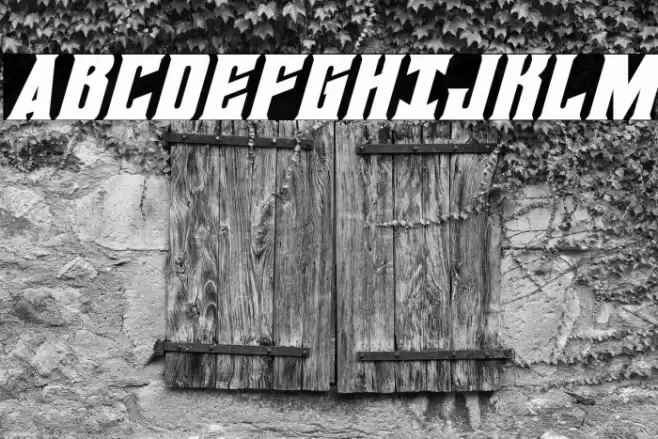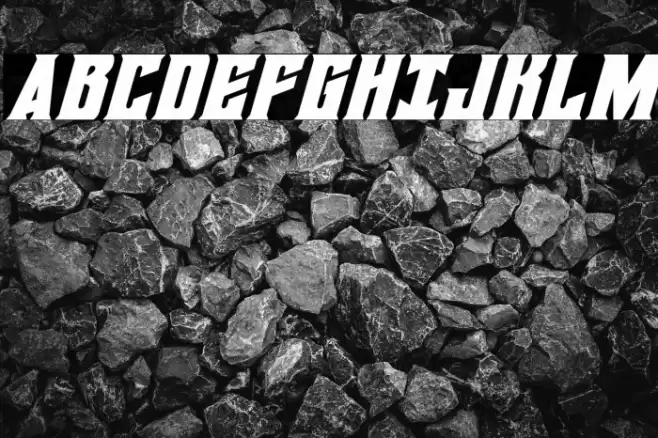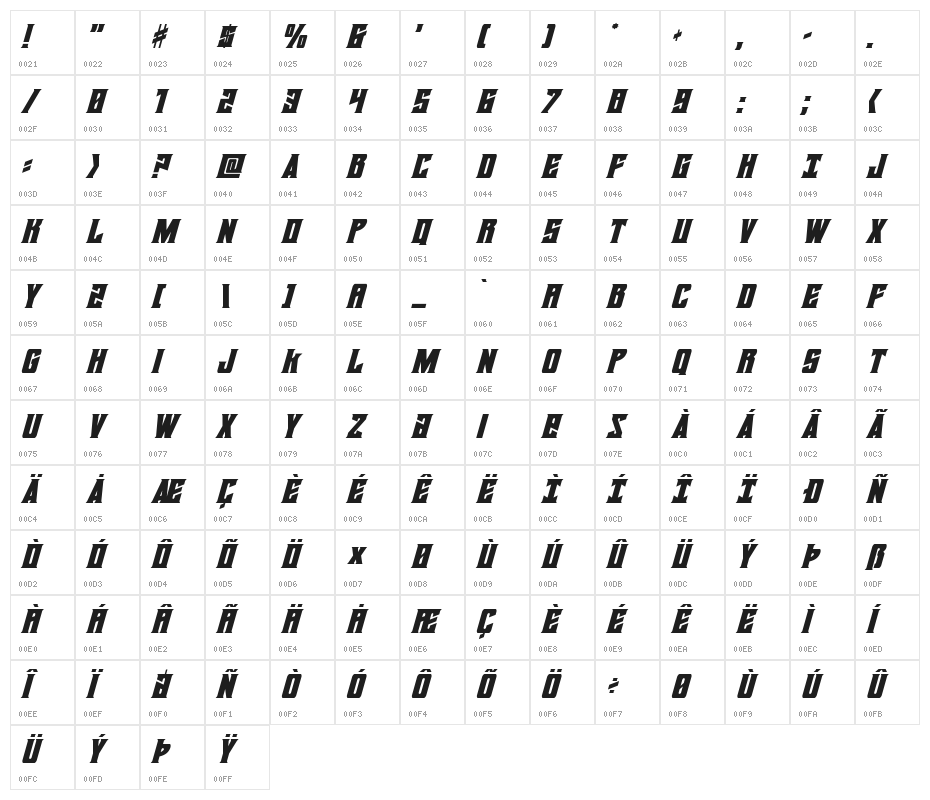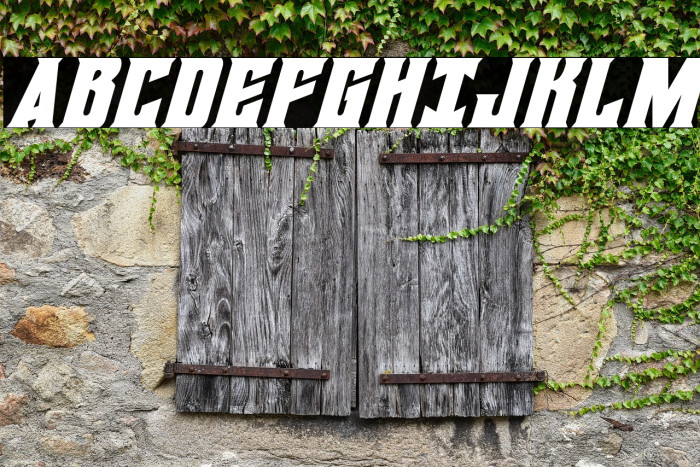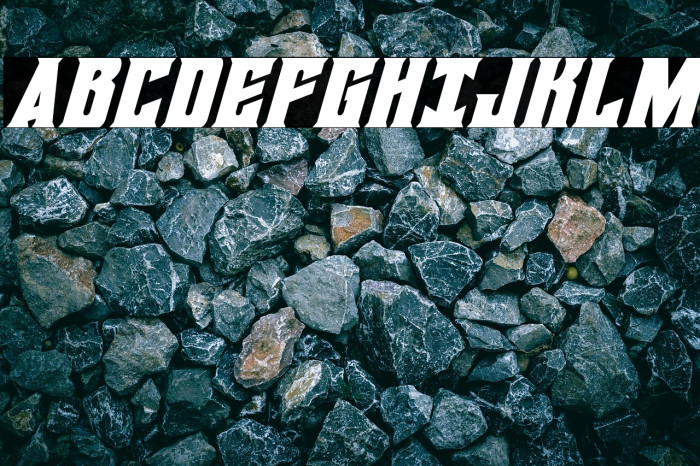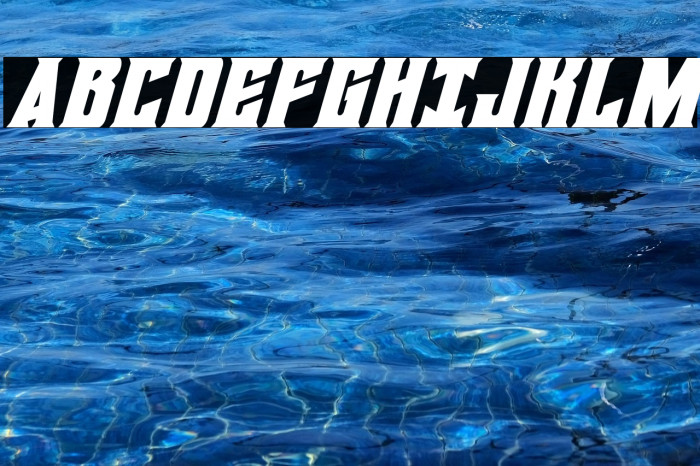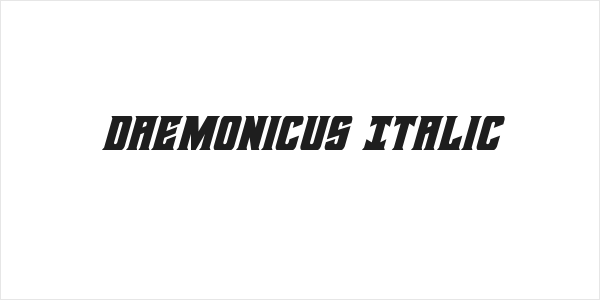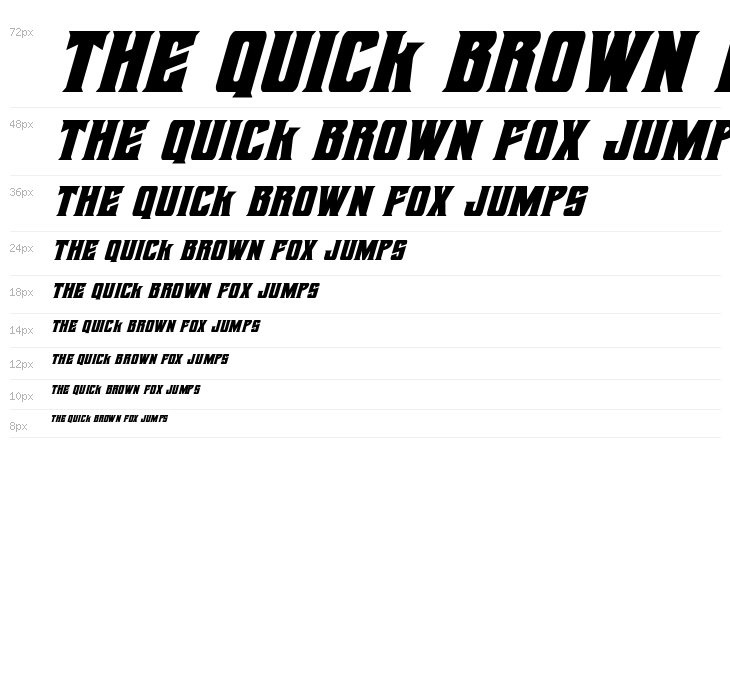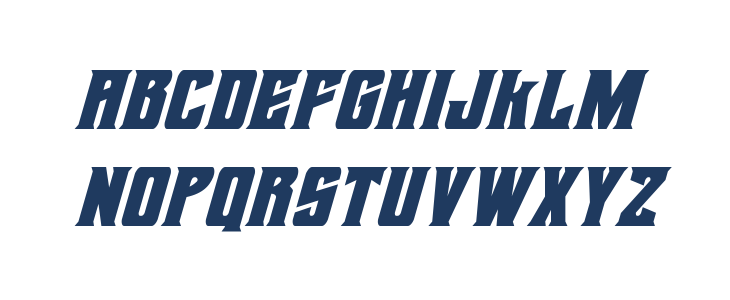
Daemonicus Italic Font
Daemonicus Italic Description
This font features a bold and dynamic style with a distinct italic slant, giving it a sense of motion and energy. The characters are sharply angular, with exaggerated serifs and a strong geometric influence. The uppercase and lowercase letters maintain a consistent style, with the uppercase being particularly striking due to their size and weight. Numbers and special characters follow the same bold and angular design, ensuring a cohesive look across all glyphs. The font's aggressive and modern appearance makes it suitable for attention-grabbing designs.
A bold, italic font with angular, geometric characters and a dynamic style from Uncategorized fonts.
- Font: Daemonicus Italic
- Proposed Projects: Ideal for sports branding, action movie posters, video game titles, and dynamic logo designs.
Daemonicus Italic UPPERCASE
Daemonicus Italic LOWERCASE
Daemonicus Italic OTHER CHARS